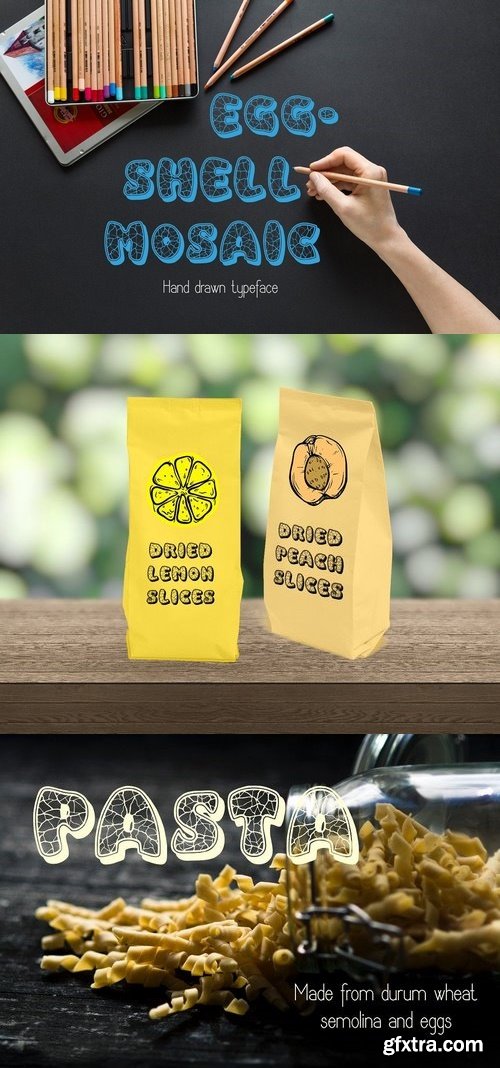
CM - Eggshell Mosaic Font 1377392
Eggshell Mosaic is a carefully drawn font. It was drawn by hand on a digital tablet. Eggshell Mosaic is great for branding, logos, titling, signage, poster, flyers or t-shirts design, headlines and more!